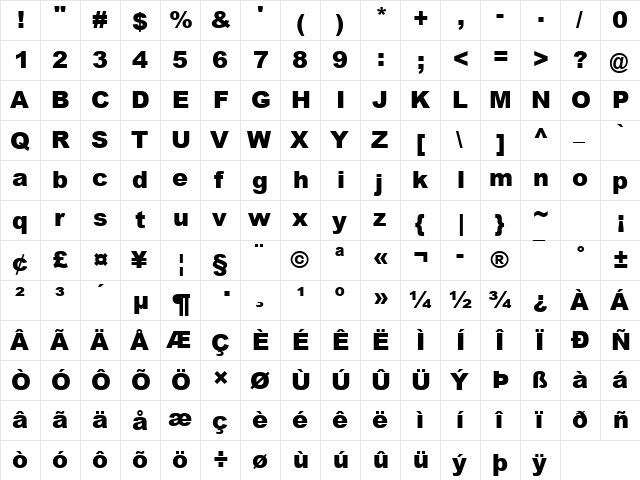
Arial MT Black Regular
Design Context for Arial MT Black Typeface
Arial MT Black takes a measured approach to typography — its balanced proportions and neutral character make it a reliable workhorse for both digital and print work.